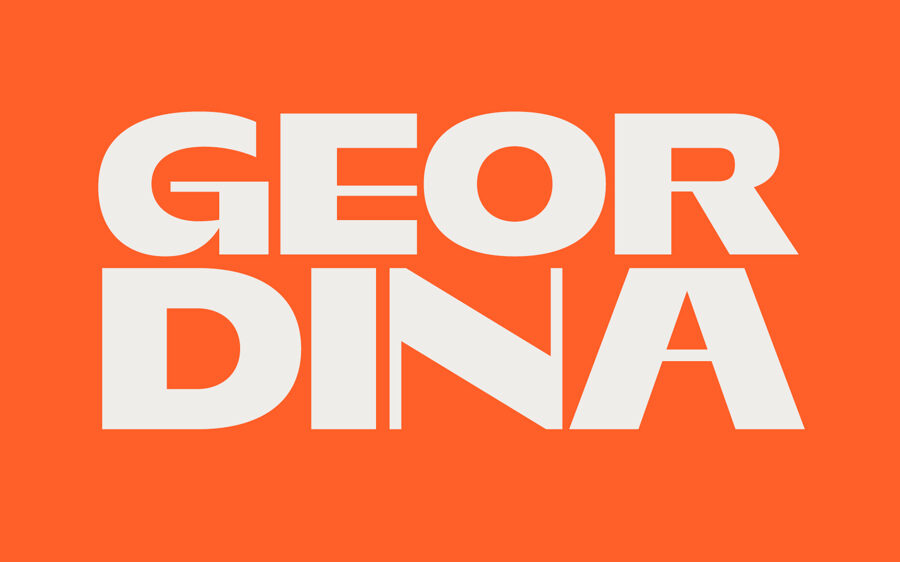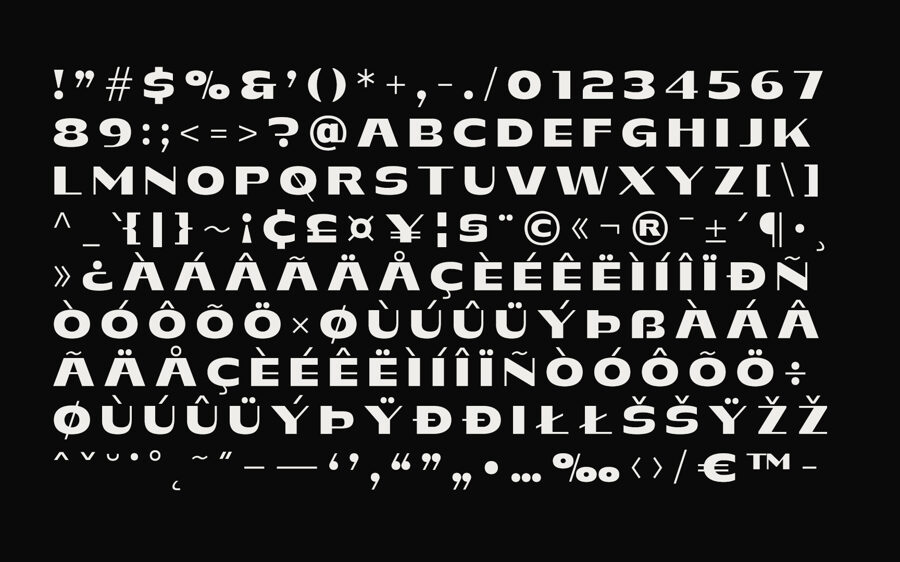
Geordina is a bold geometric display font with sharp angles, solid shapes, and distinctive cut-out details. Its futuristic, industrial character gives headlines, logos, posters, branding, and apparel designs a powerful visual presence.
The unconventional letterforms blend modern structure with a subtle retro influence, making Geordina ideal for creative projects that need a strong, confident, and memorable typographic style.